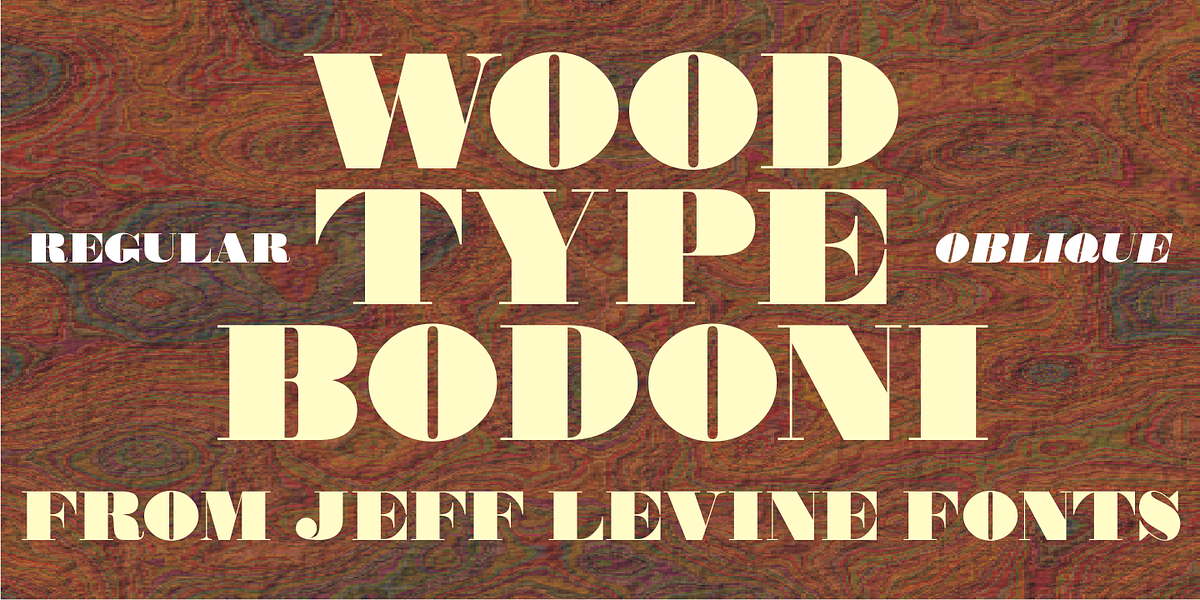
Wood Type Bodoni JNL
Wood Type Bodoni JNL is a variant of the popular ultra bold version of the classic Bodoni design, with variants in character widths and shapes.
Based on a vintage set of wood type, the “hairline” strokes of the 4 and 8 have been made ever-so-slightly thicker in spots to add a modest amount of additional contrast.